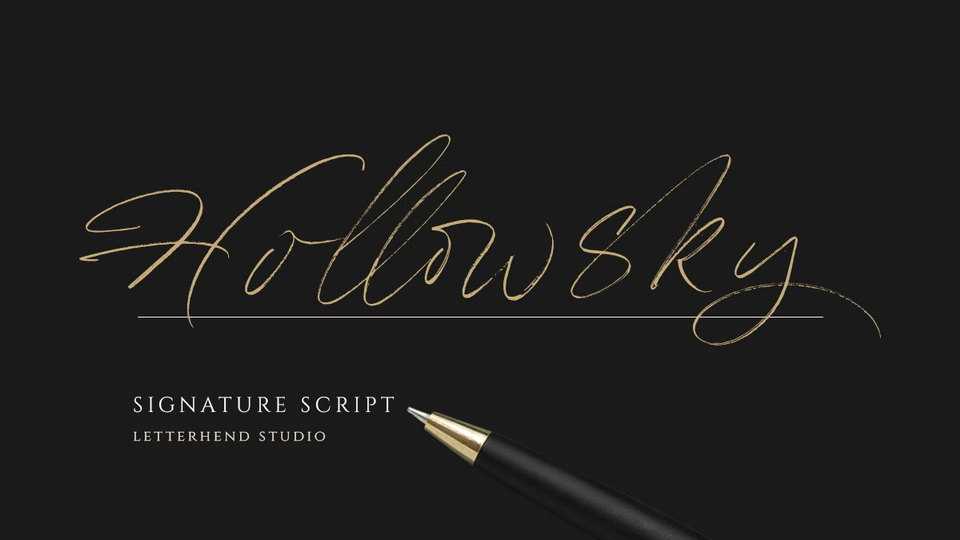
Download Hollowsky font, an incredibly elegant and delicate brushed script based on manual hand writing. Hollowsky will add a luxury spark to any design project that you wish to create.